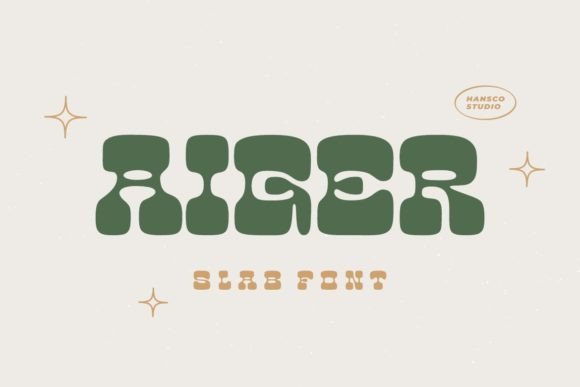
Step into a world of vintage charm and modern flair with Aiger Font, the display font that captures the essence of the past with a contemporary twist. Inspired by the nostalgic designs of yesteryear, Aiger breathes new life into retro aesthetics. Its bold and playful letterforms dance across your designs, evoking a sense of whimsy and nostalgia that will leave a lasting impression.
Unleash your creativity with Aiger's versatility, making it the perfect font for a multitude of projects. Craft retro-inspired logos that exude a timeless charm, create posters that transport viewers back in time, or design eye-catching packaging that captures the attention of your customers. With Aiger, the possibilities are endless.
Transport yourself to the golden age of design, where simplicity and elegance reigned supreme. Aiger's clean lines and classic shapes evoke a sense of sophistication and nostalgia, adding a touch of vintage charm to any project. Its distinct letterforms create a captivating visual experience, making your designs stand out from the crowd.
Immerse yourself in the playful energy of Aiger Font, where nostalgia and modernity collide. Its lively and quirky style adds a touch of fun and personality to your designs. Craft playful social media posts that engage your audience, create vibrant illustrations that spark imagination, or design merchandise that radiates retro vibes.
With Aiger Font, you'll embark on a journey through time, capturing the timeless beauty of the past while embracing the vibrant energy of the present. Download Aiger today and infuse your designs with a retro charm that's both captivating and unforgettable.